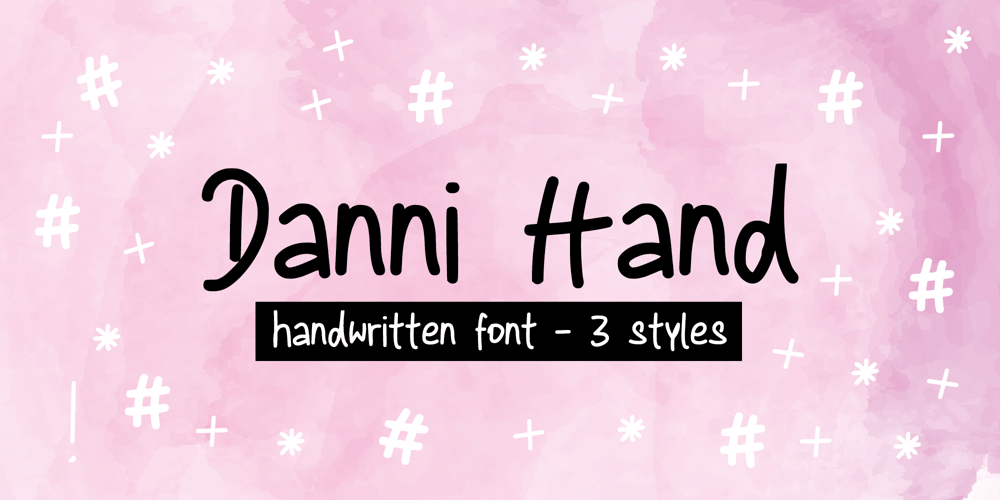
Danni Hand
Danni Hand font
Danni Hand Font Family was designed by Danni Wiebelhaus and published by danni.creative. Danni Hand contains 1 styles and family package options. Thx for checking out DANNI HAND! This hand written font gives a personal feeling to any project. Perfect for logos, initial logos, posters, text copy, printed quotes, t-shirt design and whatever your imagination holds. DANNI HAND comes in 3 font stylesnwith a complete set of uppercase and lowercase alternates, which can easily be accessed through the glyphs panel. Enjoy!